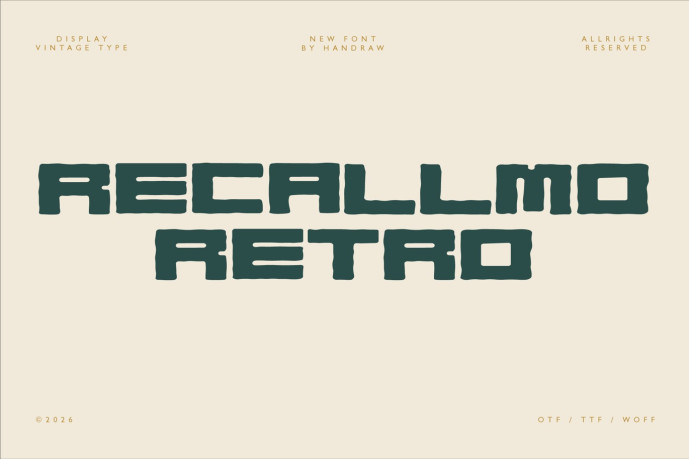
Recallmo Font
Designer: Handraw
Recallmo Font is a distinctive retro hand-drawn display font that combines playful imperfection with bold creativity. Inspired by vintage typography, its unique, handcrafted strokes evoke a sense of nostalgia while standing out with its quirky, dynamic character shapes. Perfect for designs that call for an eye-catching, artistic touch, Recallmo adds personality to logos, headlines, posters, and any project in need of a retro flair. Its expressive design makes it ideal for projects that aim to convey a fun, lively, and distinctive atmosphere, setting it apart with a timeless, yet contemporary style.